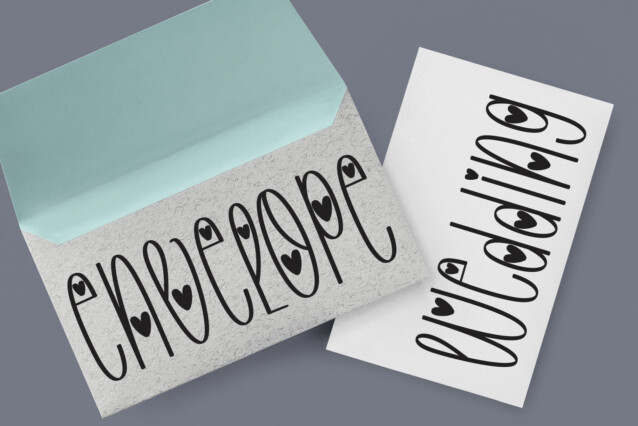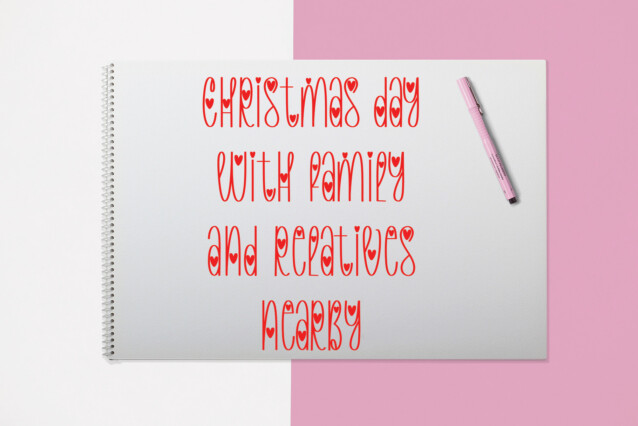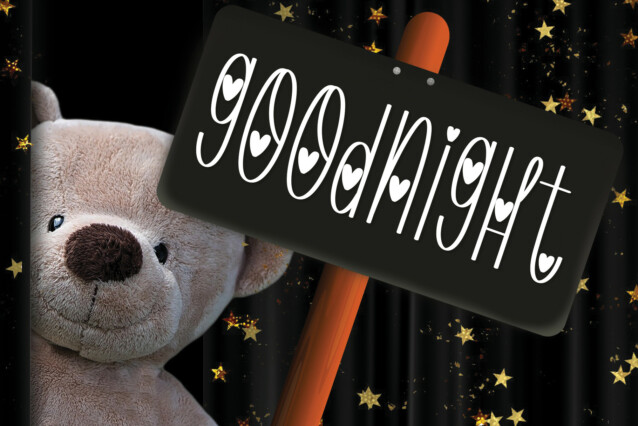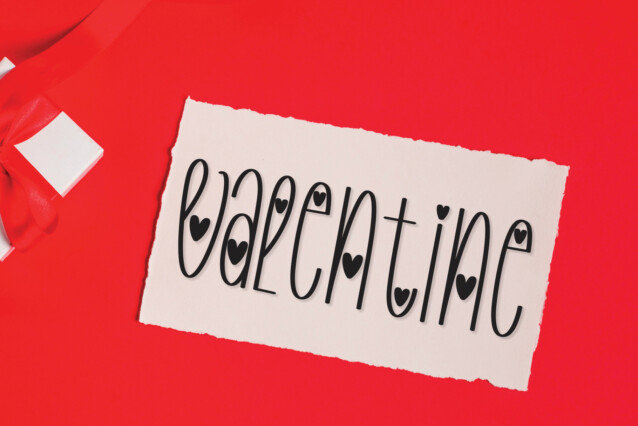
Love February Display Font
Love February Display Font is a lovely display font with a handwritten style. This handmade font features little hearts designs among its characters.
Love February is suitable for wall displays, wedding invitations, social media post logos, advertisements, product packaging, product designs, labels, photography, watermarks, invitations, stationery, and more.